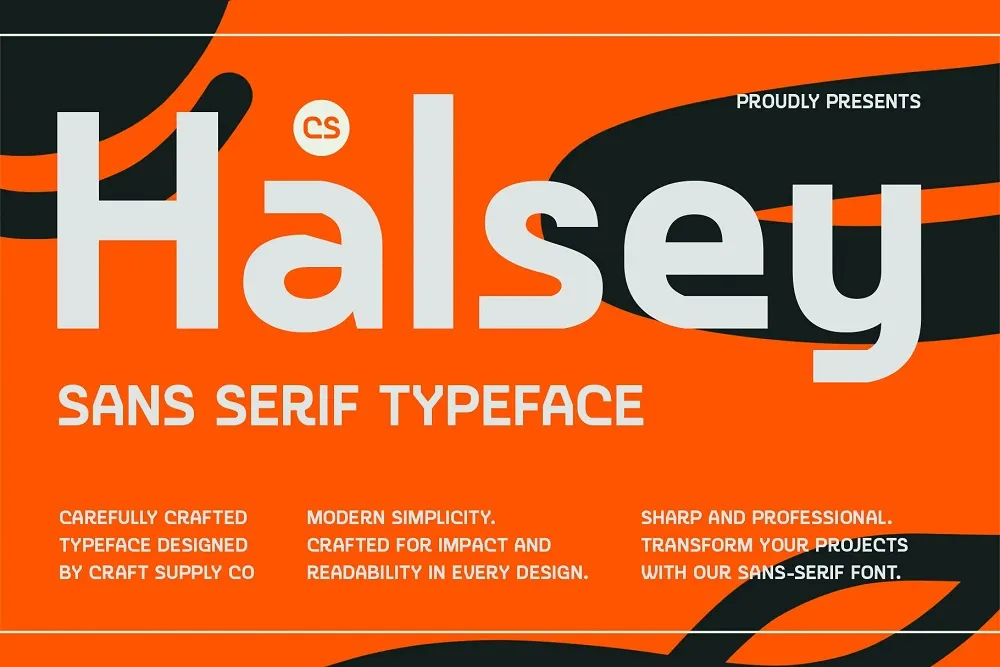
CS Halsey Fonts is a modern sans serif font suitable for today’s design projects, with minimalist and refined design that provides high readability on both screens and prints. Owing to its simplicity and ease of use, it is ideal for use in various projects.